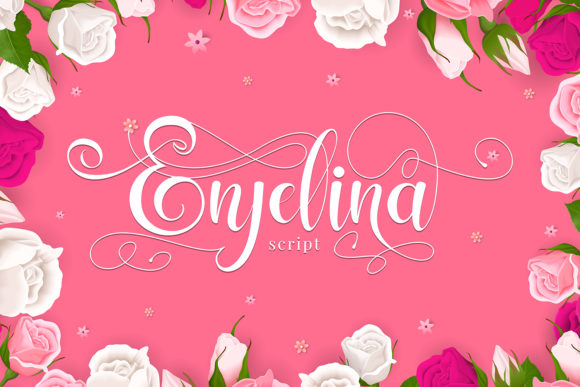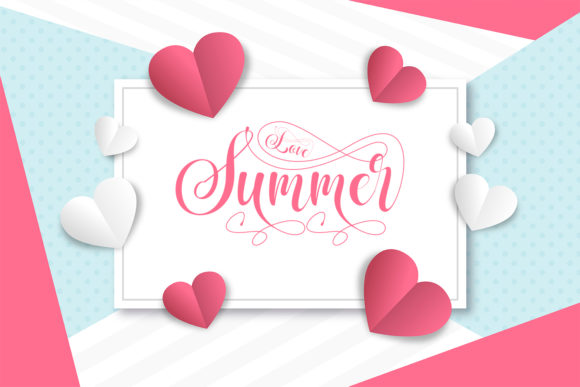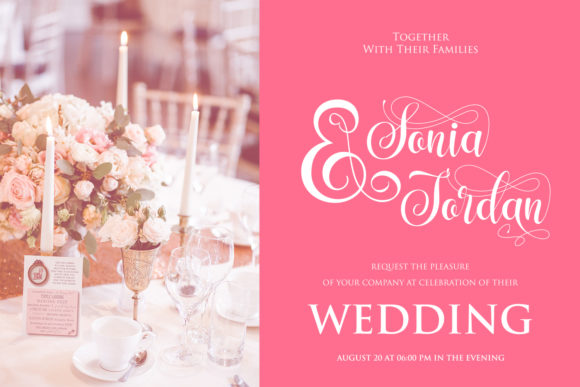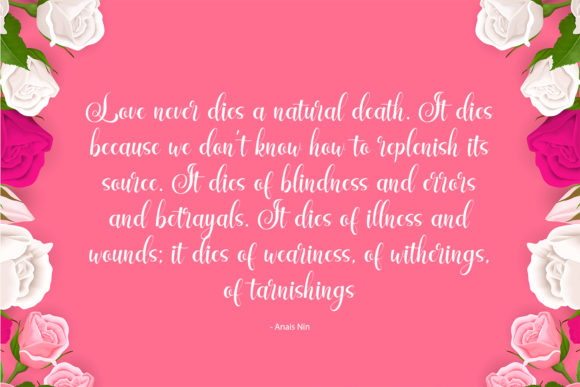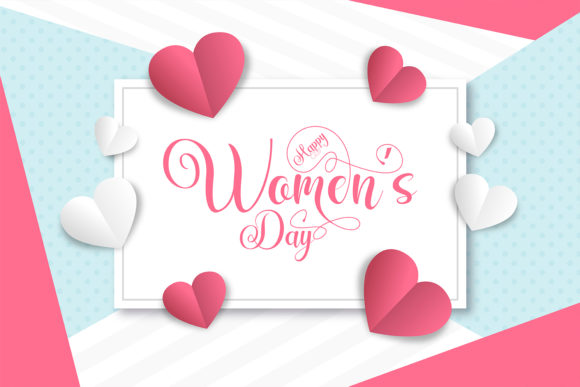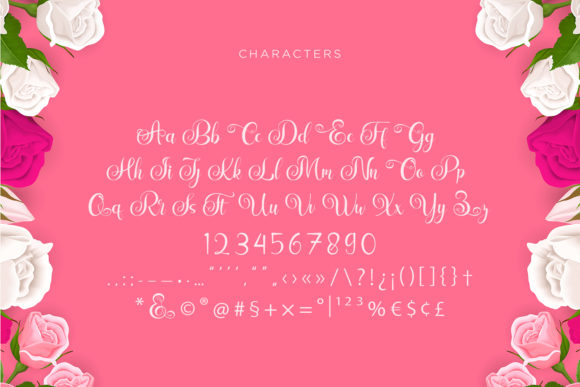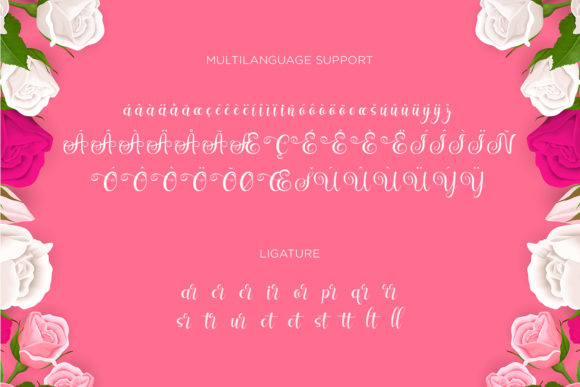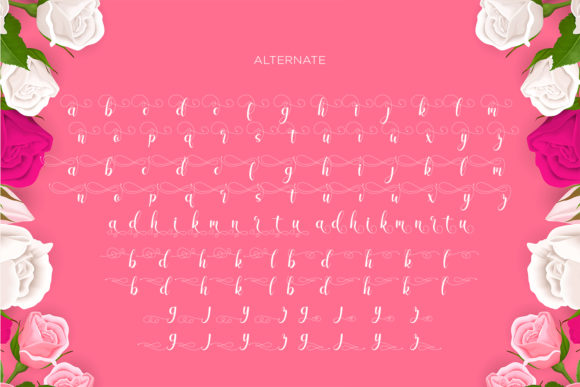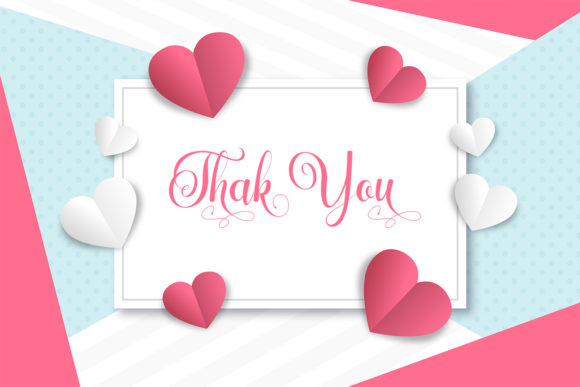
Enjelina Font
About Enjelina Font
Enjelina is a sweet script font, perfectly suitable for any love-themed craft. Use it to add a romantic spark to any design project!